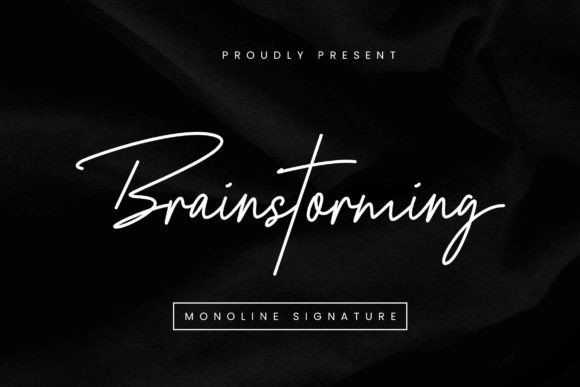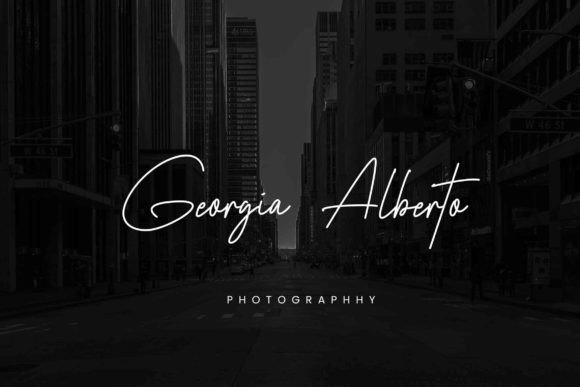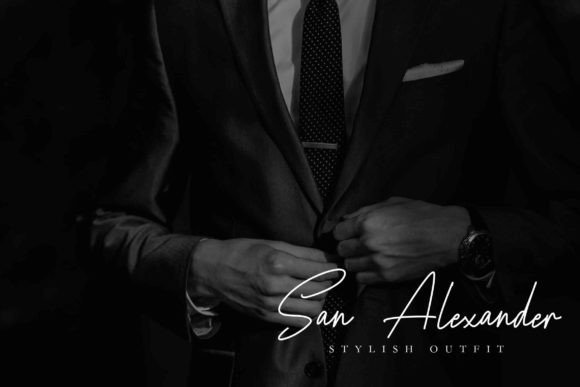
Brainstorming is a very nice and stylish monoline signature font. It’s a style that everyone falls in love with and uses to create business cards, social media posts, logos, watermarks, and many others. This font also features swash and ligature which can be used easily